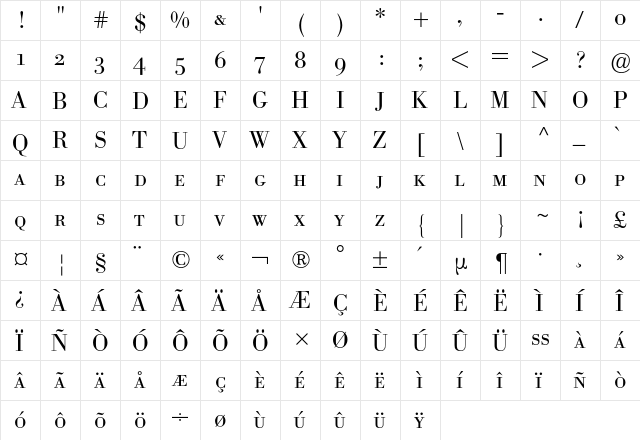
Bodoni Berthold Expert BQ Regular Font Preview
Bodoni Berthold Expert BQ Regular
Design Context for Bodoni Berthold Expert BQ Typeface
Bodoni Berthold Expert BQ offers clean, dependable letterforms without strong stylistic allegiance, making it a practical choice for designers who need flexibility.
Pro Tip: Use Bodoni Berthold Expert BQ in both headline and body roles to test its range before committing to a single application.